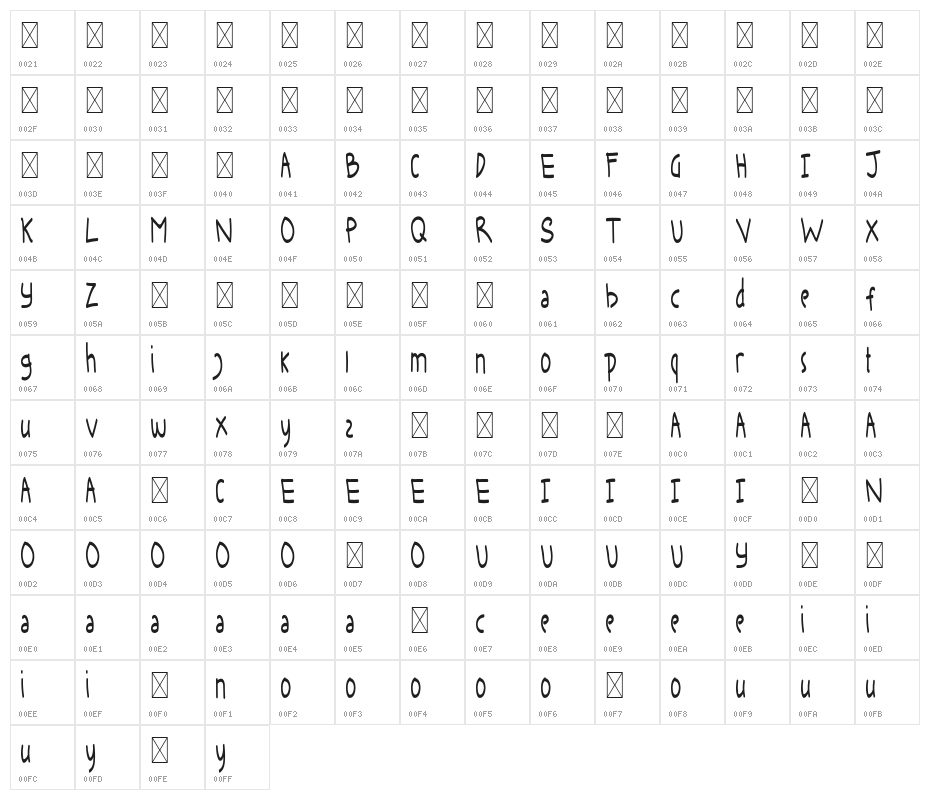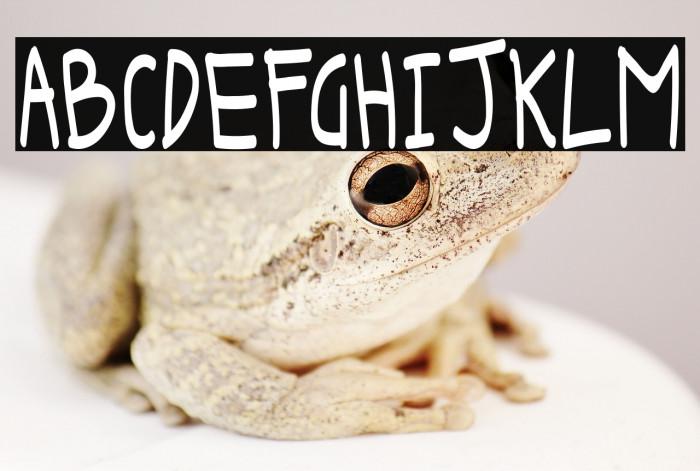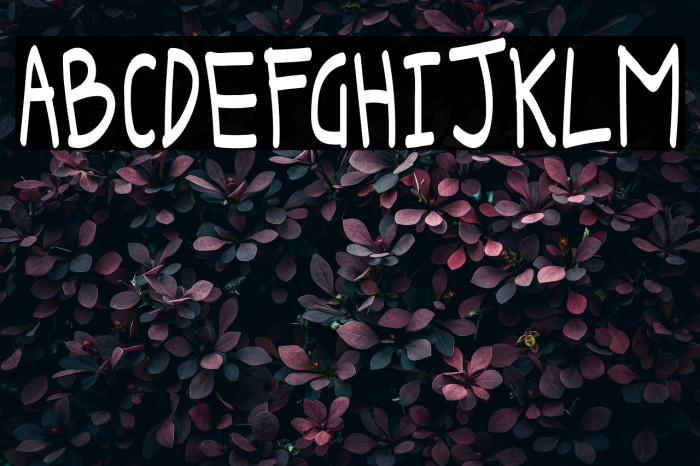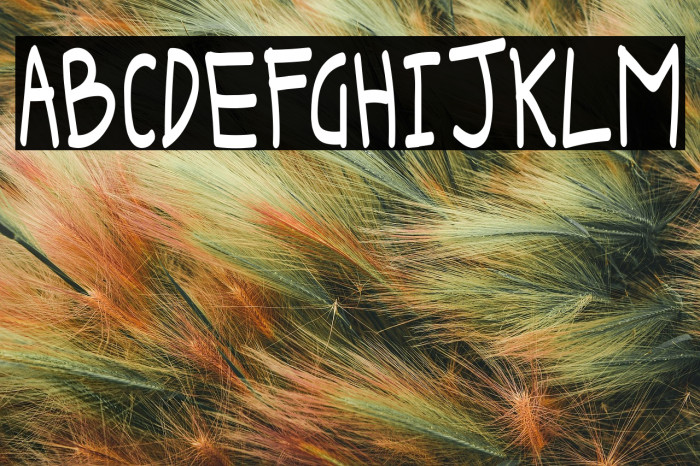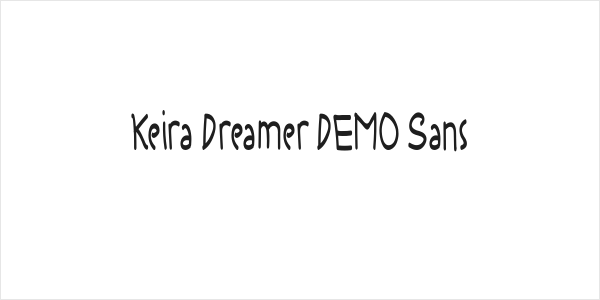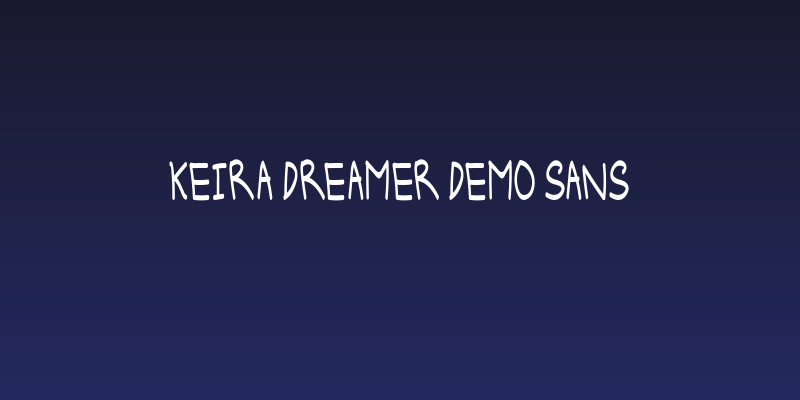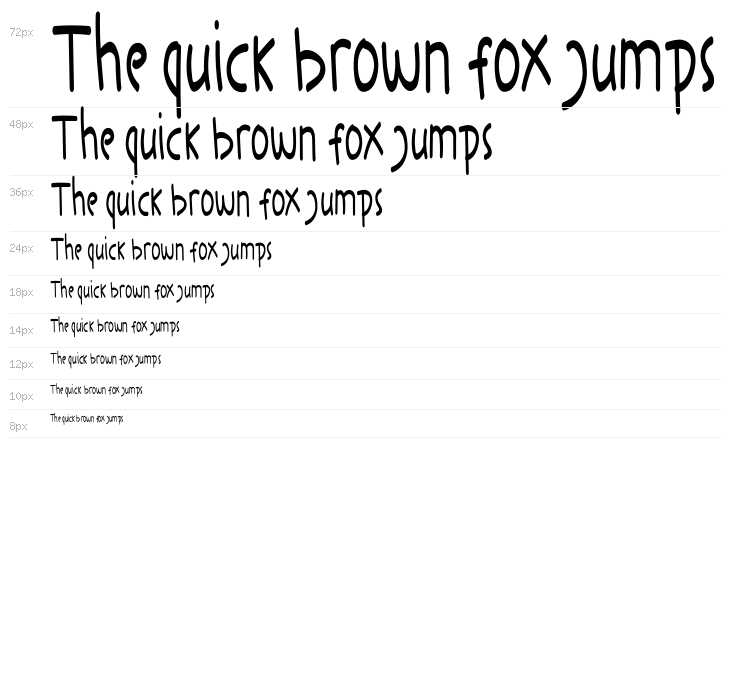
Keira Dreamer DEMO Sans Font
Keira Dreamer DEMO Sans Description
This font features a playful and informal style, characterized by its hand-drawn appearance. The letters have a casual, slightly irregular form that gives them a whimsical and approachable feel. The uppercase and lowercase letters maintain a consistent style, with rounded edges and a slight tilt that adds to the font's charm. The characters are well-spaced, ensuring readability while maintaining the font's unique personality. This style is perfect for projects that require a friendly and inviting tone.
| Use Case | Headlines, Logos, Casual Text |
| Proposed Projects | Ideal for children's books, greeting cards, playful branding, and casual invitations. |